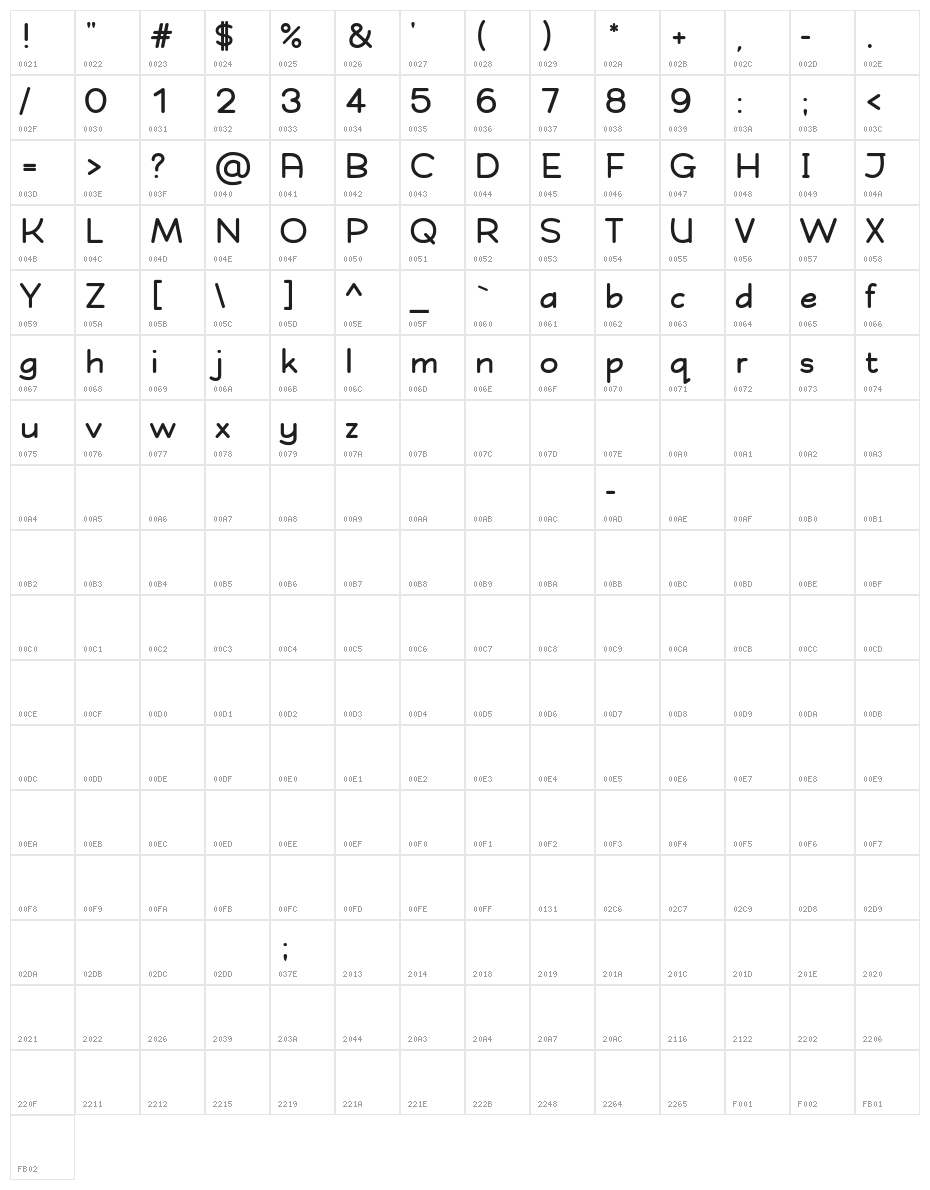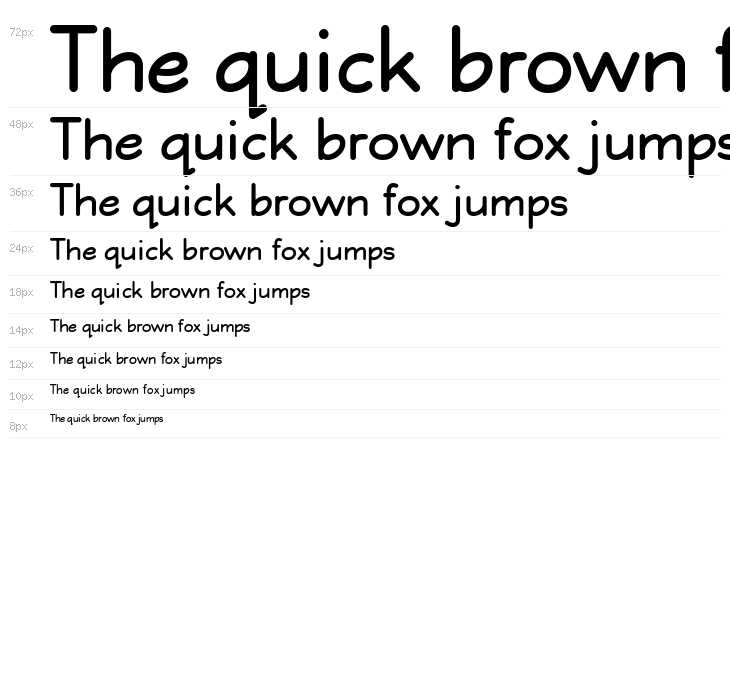
Qarmic sans free Font
Qarmic sans free Description
This font features a clean and modern sans-serif style with rounded edges, giving it a friendly and approachable appearance. The characters are evenly spaced, contributing to its readability. The uppercase letters are bold and assertive, while the lowercase letters maintain a consistent flow with smooth curves. The numerals are clear and distinct, making them easy to read. Special characters are well-defined, complementing the overall design. This font is versatile, suitable for various applications where clarity and a contemporary look are desired.